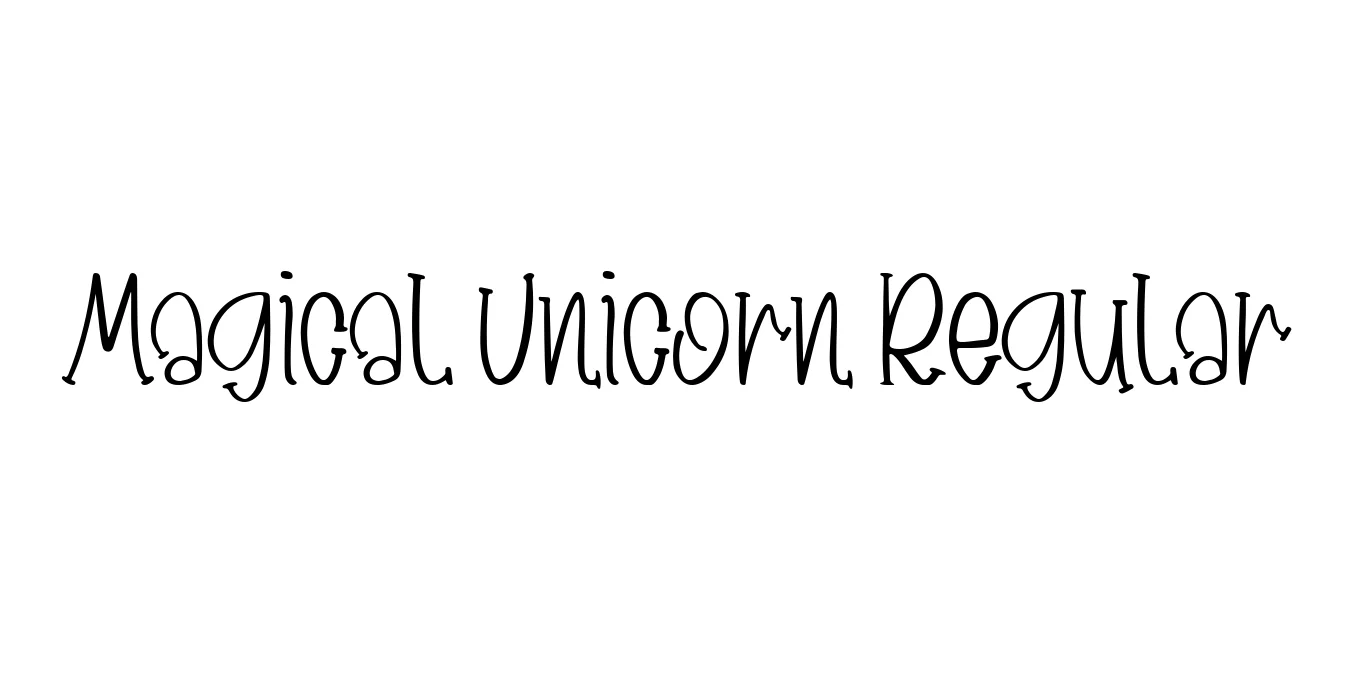
Magical Unicorn Regular
Designed by Typematerial
| Category | Whimsical Script |
| Designer | Typematerial |
Magical Unicorn Regular was conceptualized as a whimsical display typeface, drawing inspiration from contemporary calligraphy and children's fantasy literature. Developed to capture a sense of wonder, it incorporates fluid, hand-drawn strokes that mimic the organic flow of a brush pen, aimed at creating a lighthearted and approachable aesthetic for creative projects.
Technically, the font features a moderately high x-height which aids legibility despite its decorative flourishes. The visual weight is balanced through consistent stroke modulation, ensuring that the elaborate swashes do not overwhelm the character structure. The kerning is tight yet functional, making it ideal for large-scale display work where its playful terminals and rhythmic baseline can truly shine without sacrificing readability.
Magical Unicorn Regular Best Uses
Logo design for toy stores, party planners, or children's boutiques.
Playful birthday invitations and celebratory greeting cards.
Eye-catching Instagram quotes and whimsical story overlays.